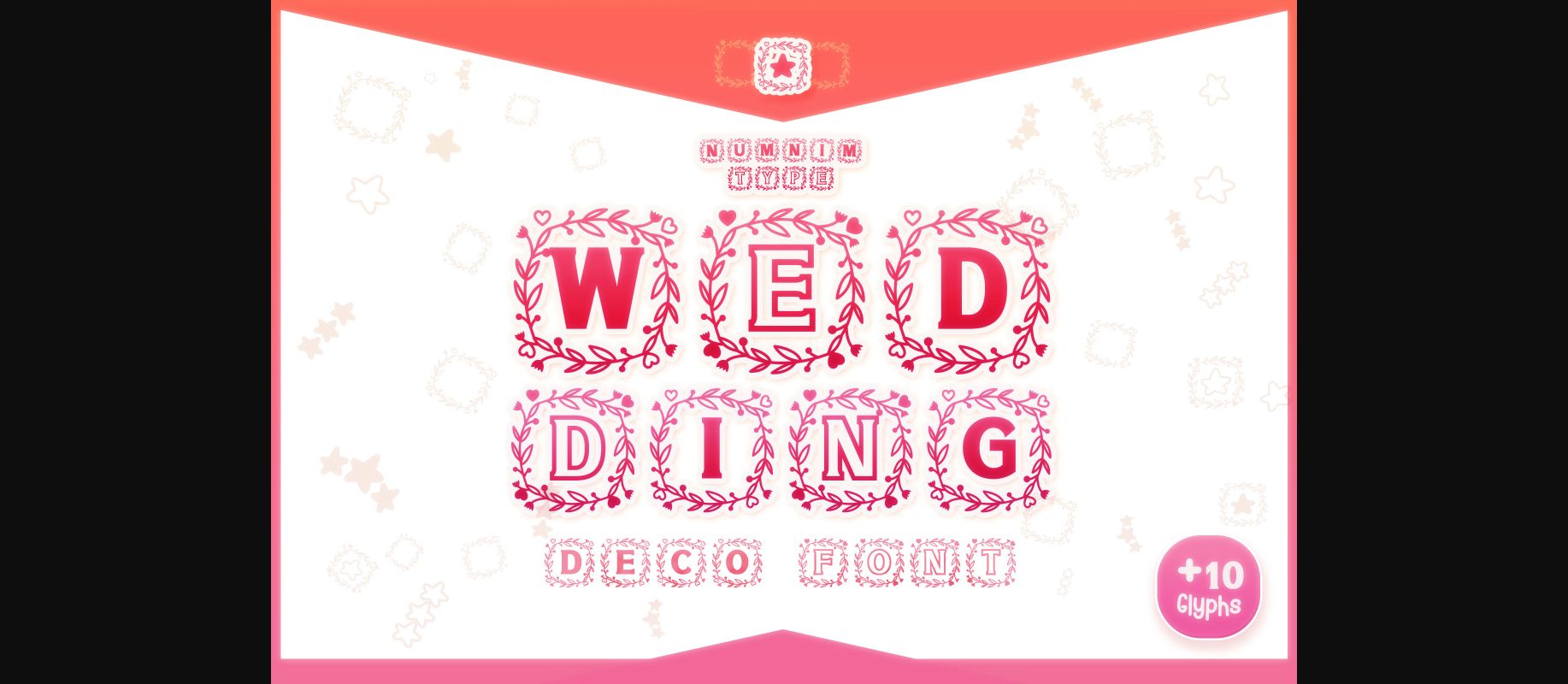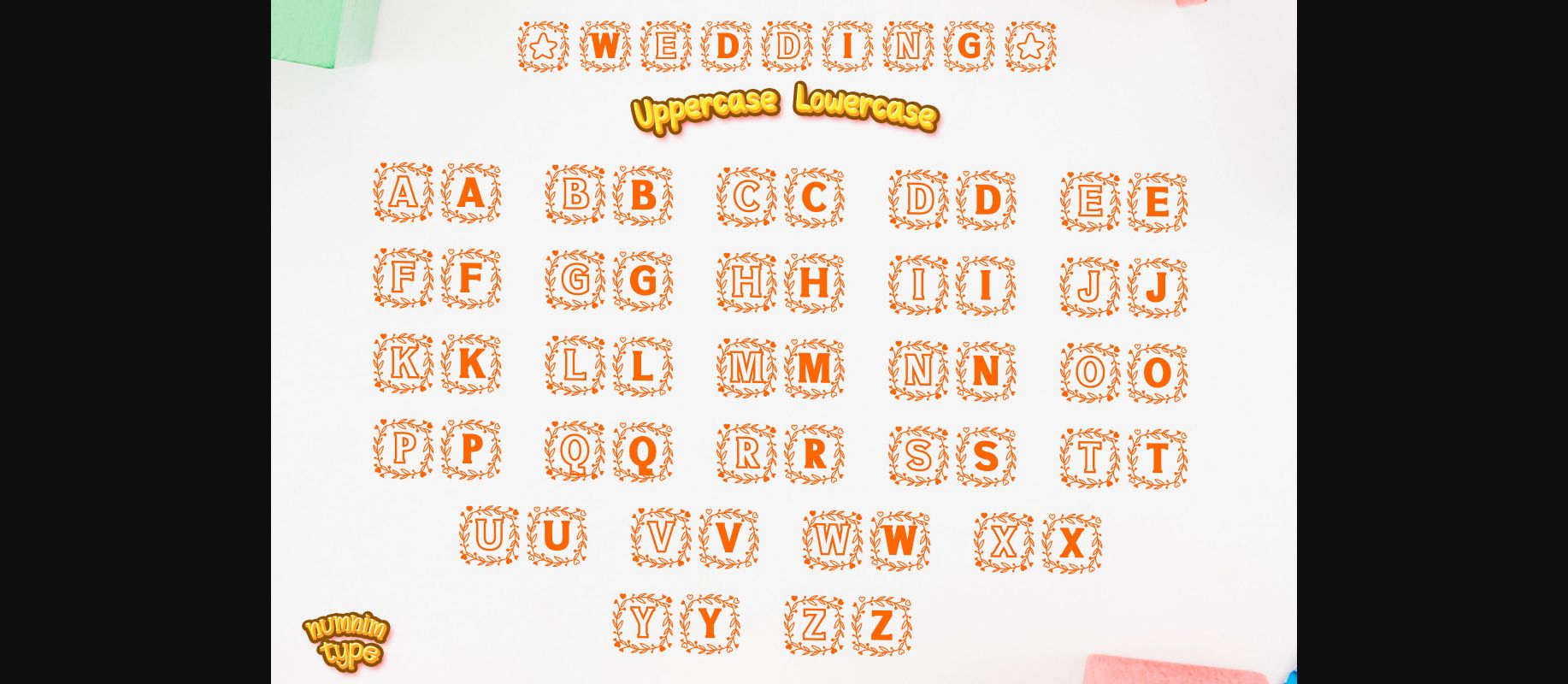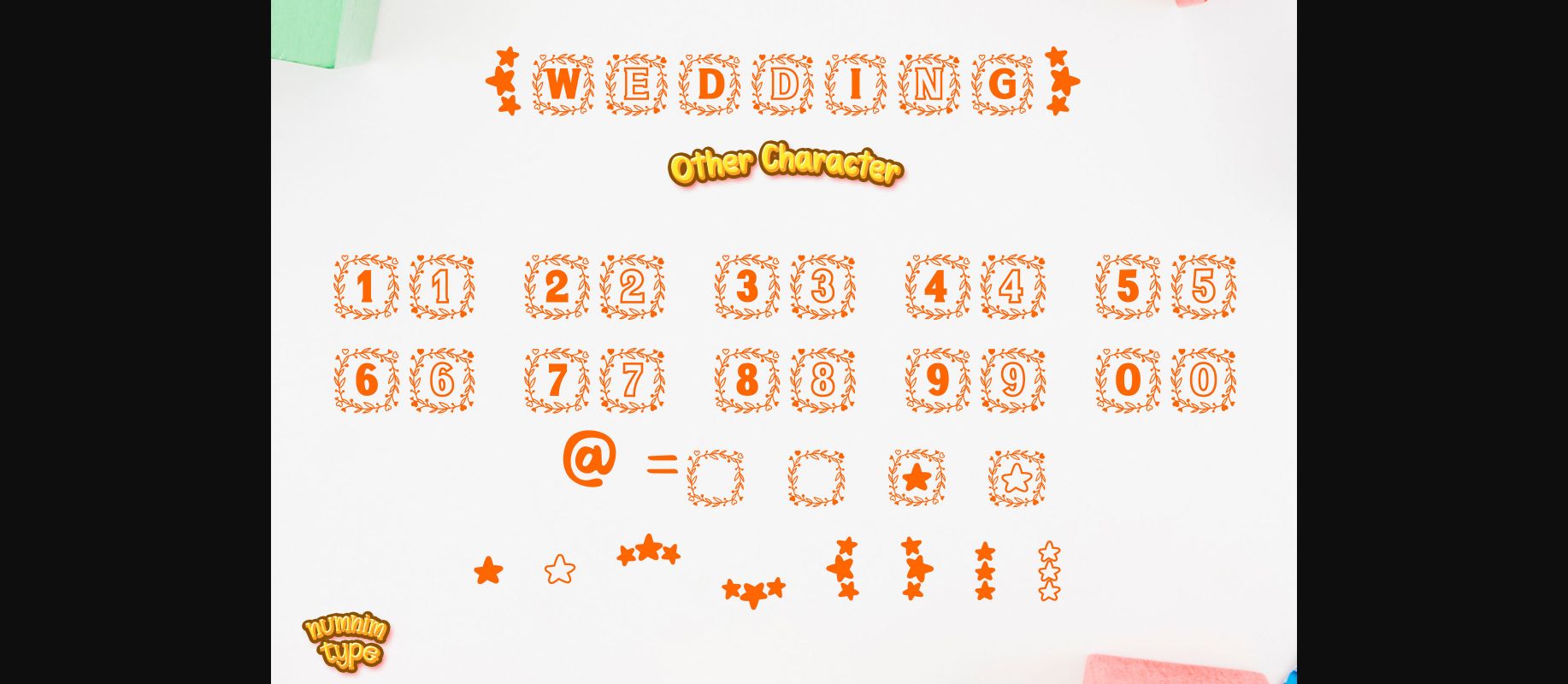
About Wedding Font
Wedding is a cool and uniquely designed decorative font. Each character is fun and playful, perfect for adding a bold accent to your designs! This font is suitable for Valentine’s Day and love-related projects. It is PUA encoded which means you can access all of the glyphs and swashes with ease!